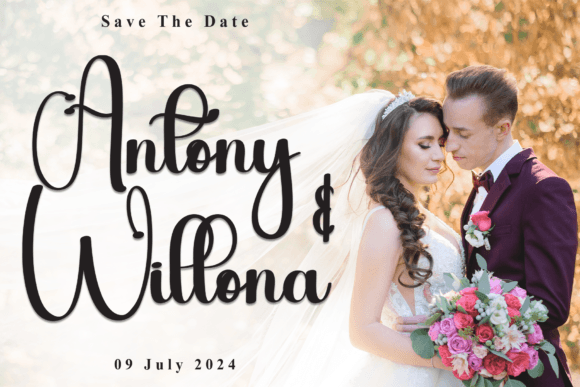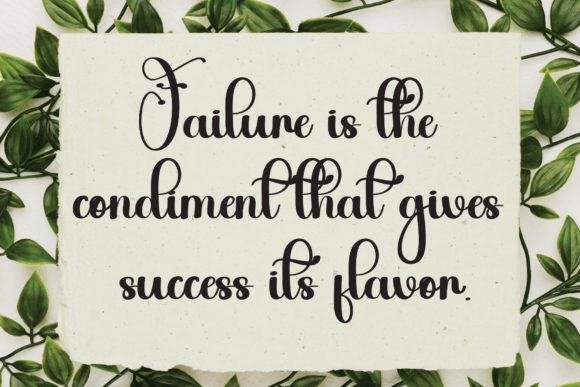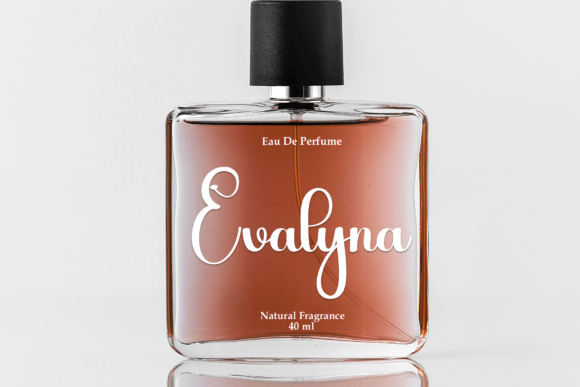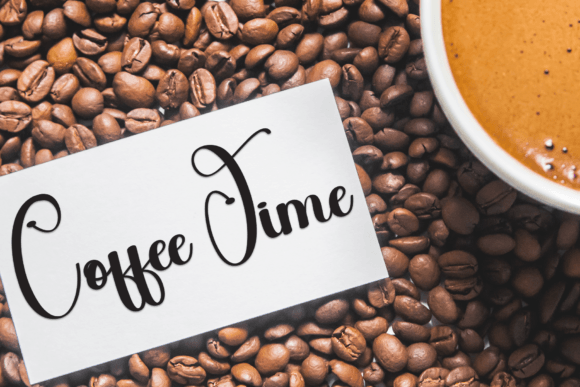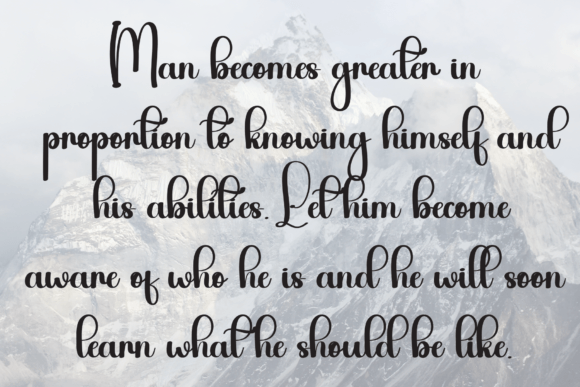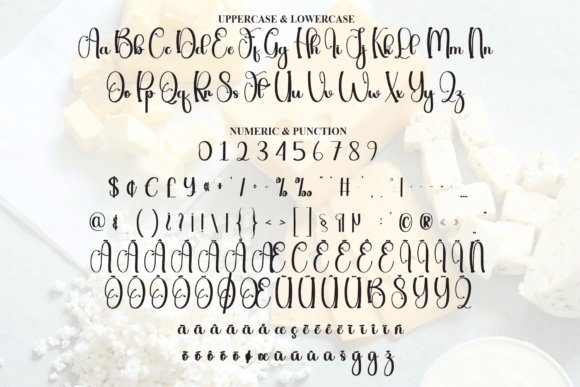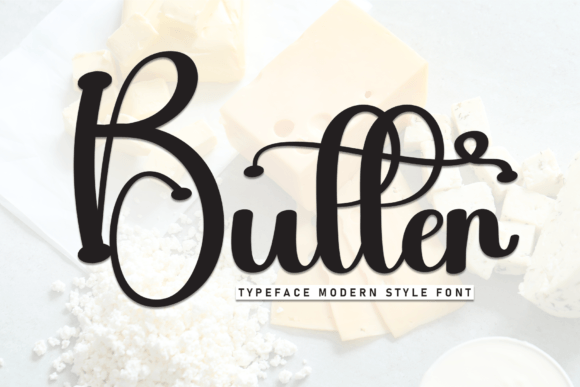
Do you remember the moment when you stumbled upon that perfect font, and suddenly, your design project felt like it was missing a piece of your heart? For designers, finding the right font can be a game-changer. It’s like stumbling upon a secret ingredient that elevates your artwork from ordinary to extraordinary.
One such secret ingredient is the Butter Font, a charming and amiable handwritten font that infuses any design with an essence of delight and joy. Conscientiously handcrafted, this font is perfect for wedding invitations, greeting cards, or any artwork that requires an exuberant dash of whimsy. With its cheerful characteristics, the Butter Font is an irresistible choice for designs seeking a friendly and engaging appeal.
For designers, the Butter Font is a valuable addition to their toolkit, offering a unique way to add personality and charm to their work. Its friendly and engaging appeal makes it an excellent choice for projects that require a touch of warmth and whimsy.
Key Features of Butter Font
- Size: 3,000+ glyphs, including a wide range of Latin, Greek, and Cyrillic characters
- Unique Characteristics: Features a smooth, rounded aesthetic with a subtle warmth, making it suitable for both body text and display use
- Language Support: Supports over 100 languages, including Latin, Greek, Cyrillic, and many others
- Weight and Style Options: Available in 9 weights, ranging from Light to Black, with corresponding italic styles
Butter Font Review
Overall, I think the Butter Font has some great qualities, but also a few areas where it falls short.
- The font’s rounded edges give it a friendly, approachable feel that’s perfect for design projects targeting a younger audience.
- The high legibility of the font makes it easy to read, even at smaller font sizes.
- The clean and simple design of the font makes it a great choice for minimalist designs.
- The font lacks a strong unique identity, which makes it hard to stand out in crowded design spaces.
- The font may not be the best choice for technical or formal designs, as it can come across as too playful or casual.
- The font’s limited font weights can make it difficult to achieve the desired level of emphasis or contrast.
Overall, I think the Butter Font is a solid choice for design projects that require a friendly, approachable feel. However, it may not be the best choice for more complex or formal designs.
Getting the Most Out of Butter Font
To get the most out of the Butter Font, consider the following tips:
- Use the font in conjunction with a bold or italic font to create visual interest.
- Use the font in combination with graphics and images to create a visually appealing design.
The Butter Font is commonly used in:
- Branding and logos.
- Advertising and marketing materials.
- Graphic design and digital art.